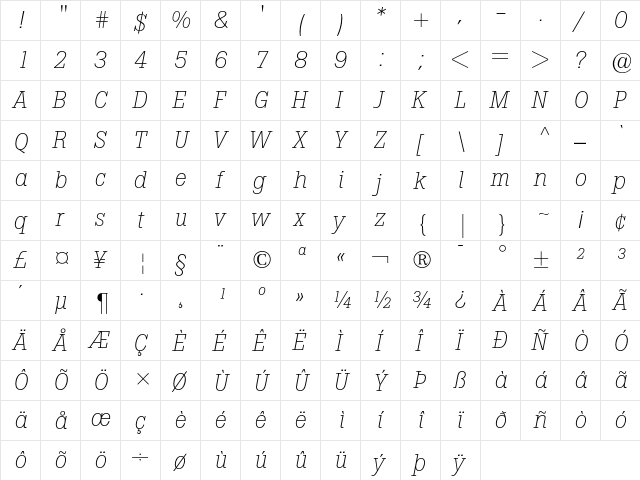
Boton Light Italic Font Preview
Boton Light Italic
Design Context for Boton Typeface
Boton takes a measured approach to typography — its balanced proportions and neutral character make it a reliable workhorse for both digital and print work. The slanted form adds forward momentum and visual energy. The delicate stroke weight brings airiness and refinement to layouts.
Pro Tip: Try Boton for annotation and caption copy alongside an upright companion — the contrast in angle creates a dynamic but ordered typographic system.